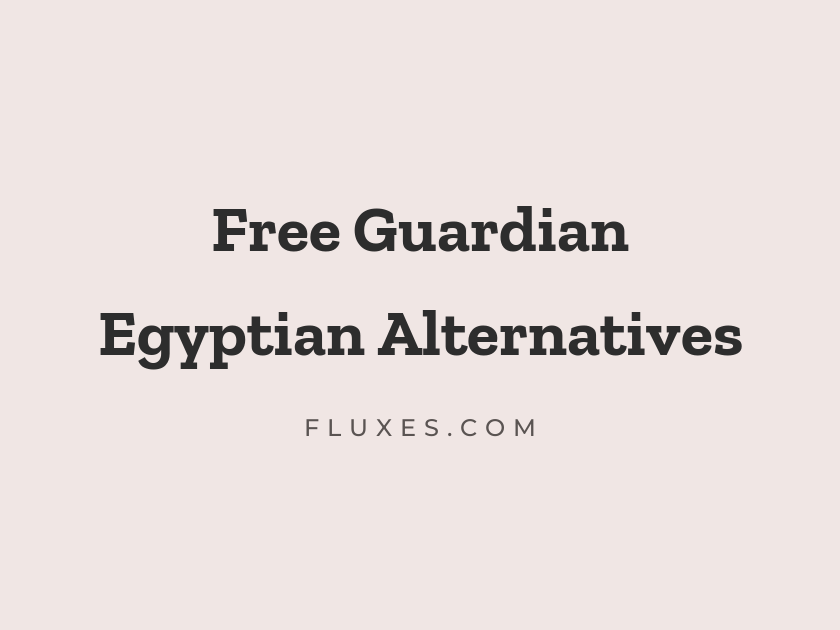
14 Best Free Fonts Alternatives to Guardian Egyptian
Guardian Egyptian was built for one job: carrying a newspaper’s voice across headlines, standfirsts, and body copy with a slab serif that feels both authoritative and human. Its slightly condensed proportions, sturdy serifs, and warm curves gave The Guardian a distinct editorial identity that many designers still chase for newsletters, magazines, and news-style websites. Because Guardian Egyptian itself is a proprietary commission, most people typing “Guardian Egyptian alternative” are really after that same mix of newsroom gravity and everyday readability, and Google Fonts has a strong bench of free slab serifs that get you there.
The fonts gathered here lean into that same territory: contemporary slab serifs with enough personality for headlines and enough restraint to stay legible in long-form text. Some are built specifically for screen reading, others are punchier display slabs best reserved for mastheads and pull quotes, but all of them share that sturdy, ink-on-paper confidence.
1. Zilla Slab
Commissioned by Mozilla for its own editorial-heavy documentation, Zilla Slab was engineered to hold up in dense paragraphs of text without losing character. It has a slightly condensed, businesslike rhythm that echoes Guardian Egyptian’s newspaper roots, and it comes in enough weights to carry a full masthead-to-body hierarchy on its own.
2. Roboto Slab
Roboto Slab takes the geometric neutrality of Roboto and bolts on squared-off serifs, resulting in a workhorse that reads as confidently on a news homepage as it does in a spec sheet. It is an easy first stop for anyone who wants a slab that feels current rather than nostalgic, though at very small sizes the serifs can flatten out slightly, so keep body copy at a reasonable point size.
3. Bitter
Bitter was explicitly designed for on-screen reading, and it shows: the x-height is generous, the serifs are chunky but not heavy, and paragraphs of text stay comfortable across many lines. It pairs naturally with a sans-serif for bylines and captions, and it holds its own as a body-text alternative when a project needs Guardian Egyptian’s warmth without its display-weight punch.
4. Arvo
Arvo is geometric where Guardian Egyptian is more humanist, but the bold weight has a similar confident thud when set large. It works best in headlines and short bursts of text rather than long columns, where its mechanical regularity can start to feel a little stiff.
5. Rokkitt
Rokkitt softens the slab-serif formula with rounder terminals and a friendlier stance, making it a good option for feature sections or lifestyle desks that want something less severe than a hard news masthead. It reads well at mid-size settings, which suits pull quotes and subheadings especially.
6. Aleo
Originally drawn as a companion to a humanist sans, Aleo carries that same balanced, approachable feel into slab-serif territory. It is a quiet workhorse best suited to op-eds, bios, and other text blocks where legibility matters more than personality.
7. Slabo 27px
This one is unusual among slab serifs because it was drawn for a single, specific purpose: optimal legibility at 27 pixels on screen. That makes it an excellent choice for article body text on news and magazine sites, though its narrow use case means it is not the font to reach for on a headline or logo.
8. Crete Round
Crete Round trades sharp slab corners for soft, rounded ones, giving it a gentler, almost storybook warmth that still reads as a proper slab serif. It suits weekend supplements, culture sections, and any editorial project that wants a touch more approachability than a hard news typeface.
9. Josefin Slab
Built on the same geometric skeleton as the popular Josefin Sans, this slab has a retro, art-deco undertone that sets it apart from the more utilitarian options on this list. It shines in fashion, design, and culture publications looking for a headline font with a little more character than straight newsroom neutrality.
10. Bevan
Bevan is a dense, high-contrast slab built for maximum impact at large sizes, closer in spirit to Guardian Egyptian’s boldest headline weights than to its body text. Reserve it for mastheads, splash headlines, and cover lines rather than running text, where its heaviness would quickly turn dense.
11. Kameron
Kameron has a plain, slightly old-fashioned sturdiness that recalls hot-metal newspaper type, with wedge-shaped serifs and an even color across a line of text. It is a solid, understated choice for a publication that wants to feel established rather than trendy.
Test your chosen font at the actual sizes your site will use before committing. Some slab serifs that look striking at headline size can turn muddy or cramped once shrunk down to caption text.
Any of these free Google Fonts can stand in for Guardian Egyptian’s newsroom character, whether the project calls for the sturdy neutrality of Roboto Slab or the art-deco flair of Josefin Slab. Download a few, test them against real headlines and paragraphs, and let the story itself decide which one fits.